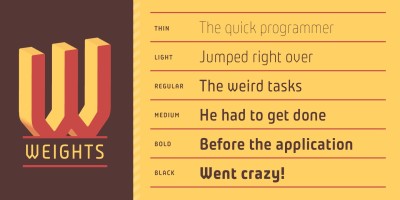
Rolka Font is dynamically designed for roller sports branding, skating company logos, extreme sports advertising, urban lifestyle campaigns, youth-oriented marketing materials, adventure park signage, skateboard deck graphics, and active recreation communications. This energetic typeface excels in environments requiring rolling motion and youthful energy, making it perfect for skating brands, extreme sports companies, urban fashion labels, and any organization needing to communicate movement and street culture through distinctive typography.
What makes Rolka Font so exciting is its authentic capture of rolling motion dynamics and street culture aesthetics that instantly communicates the thrill of skating and the freedom of wheel-based movement. The font features kinetically designed letterforms with rolling curves and momentum-inspired proportions that mirror the smooth flow of wheels on pavement and the rhythmic motion of skating disciplines. Its dynamic construction and street-smart character make it incredibly effective for brands wanting to communicate youth culture, urban authenticity, and rolling sports excellence while appealing to audiences passionate about skating and street sports.
Rolka Font typically includes multiple weights and styles such as Light, Regular, Bold, and potentially wheeled variants with enhanced rolling elements. The font family often features additional character sets including sports symbols, urban icons, and movement glyphs that enhance its skating appeal. Each weight maintains the font's distinctive rolling character while offering different levels of visual momentum, providing designers with comprehensive tools for creating energetic brand identities and street culture communication materials.
Extreme sports professionals will discover that Rolka Font Free Download delivers outstanding performance in both action sports applications and youth marketing materials designed for skating audiences. The font's carefully crafted character set includes movement-friendly letterforms, skating symbols, and urban elements essential for roller sports branding, extreme sports marketing, and street culture materials. Its dynamic design makes it particularly effective for skateboard companies, roller derby teams, inline skating brands, and youth-oriented marketing campaigns requiring authentic street presence.
The strategic attention to rolling proportions and kinetic spacing ensures that Rolka Font maintains excellent readability while delivering maximum movement impact. Its street-inspired design language makes it particularly effective for urban sports, youth marketing, skating applications, and extreme sports communications. The font's energetic appearance creates strong cultural connections while remaining highly functional for projects requiring clear communication to skating enthusiasts and street sports communities.
For designers seeking a typeface that embodies rolling motion with street authenticity, Rolka Font Free Download represents an exceptional choice that will roll through any project with its distinctive energy and urban character.